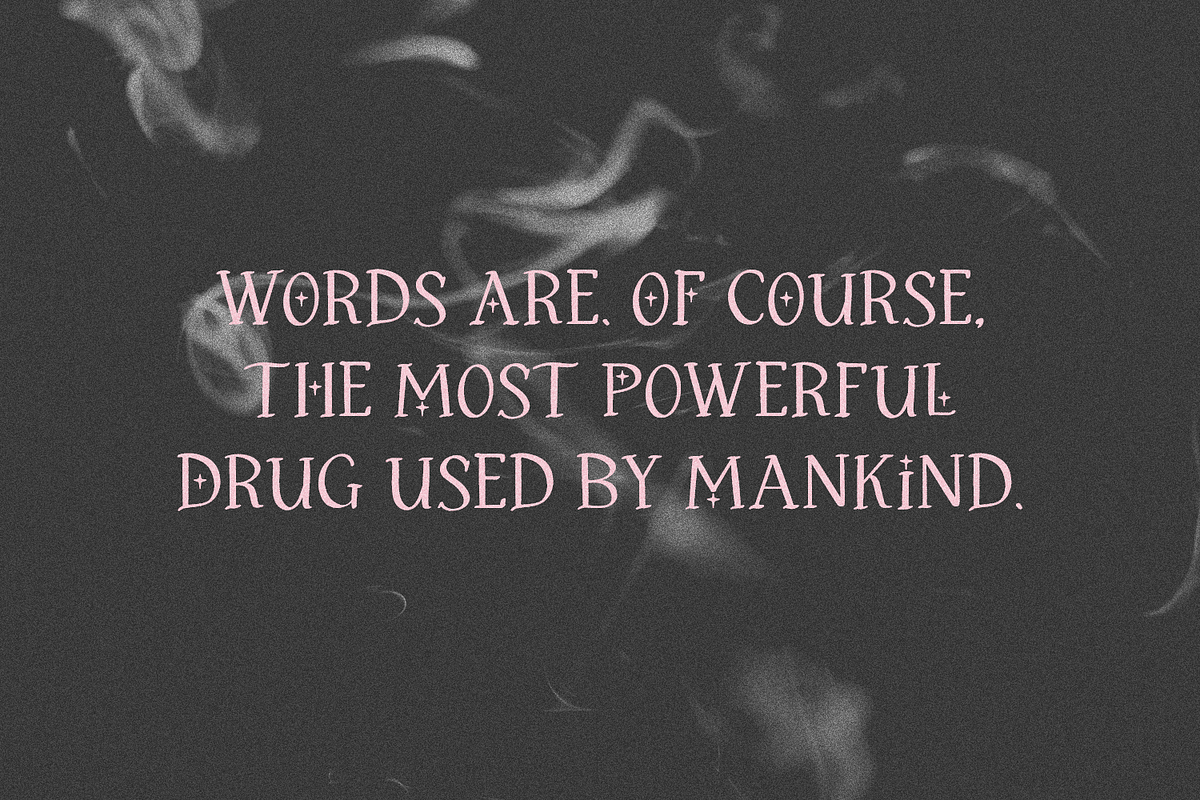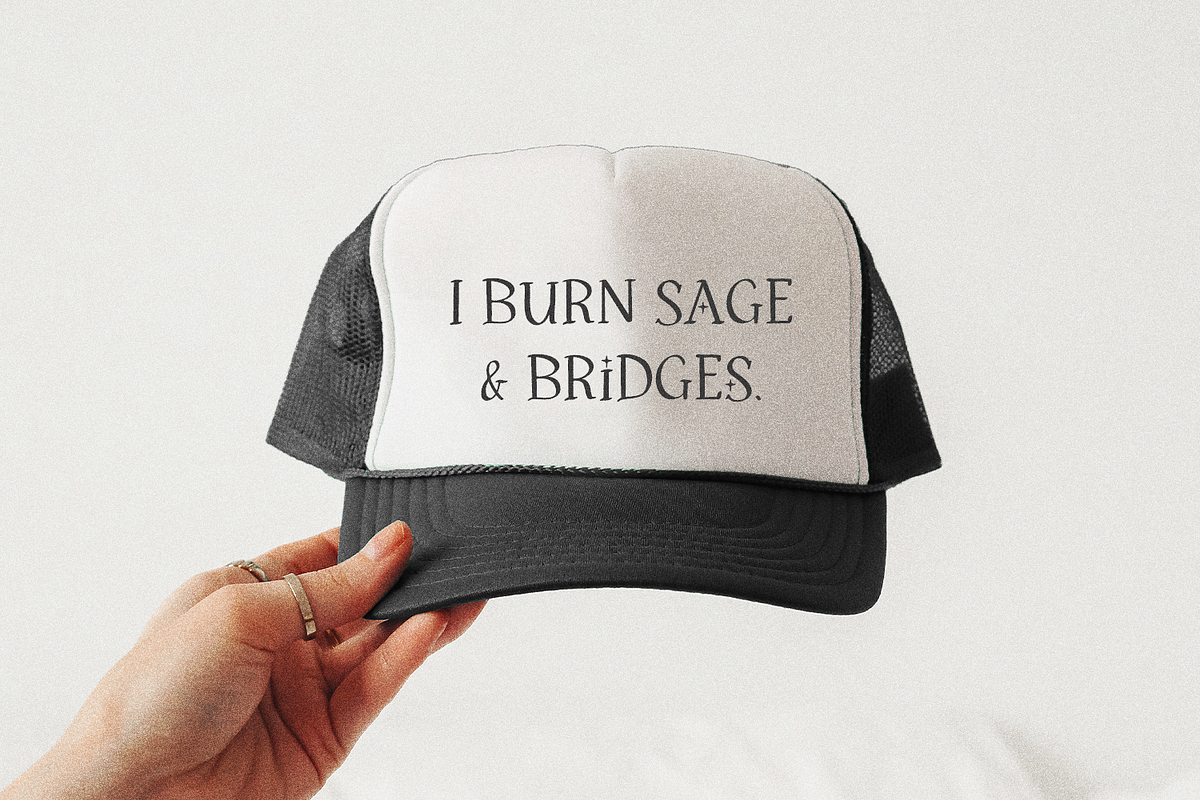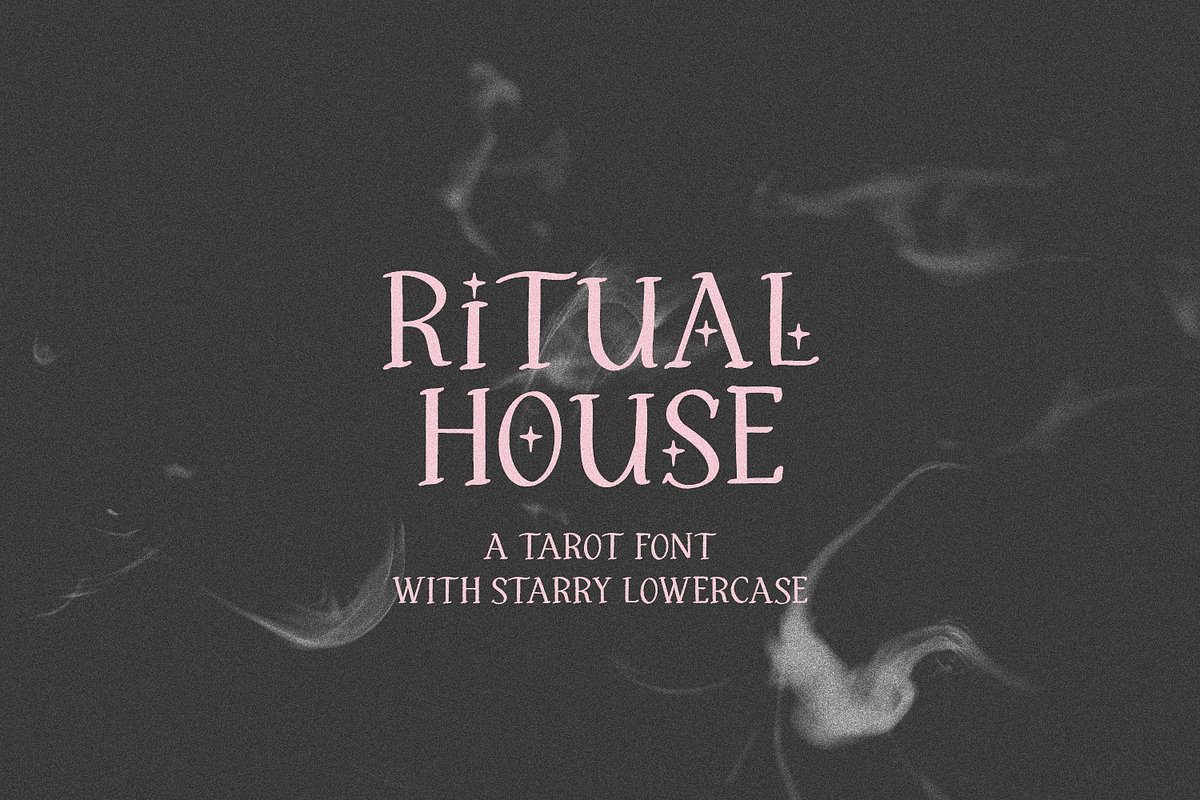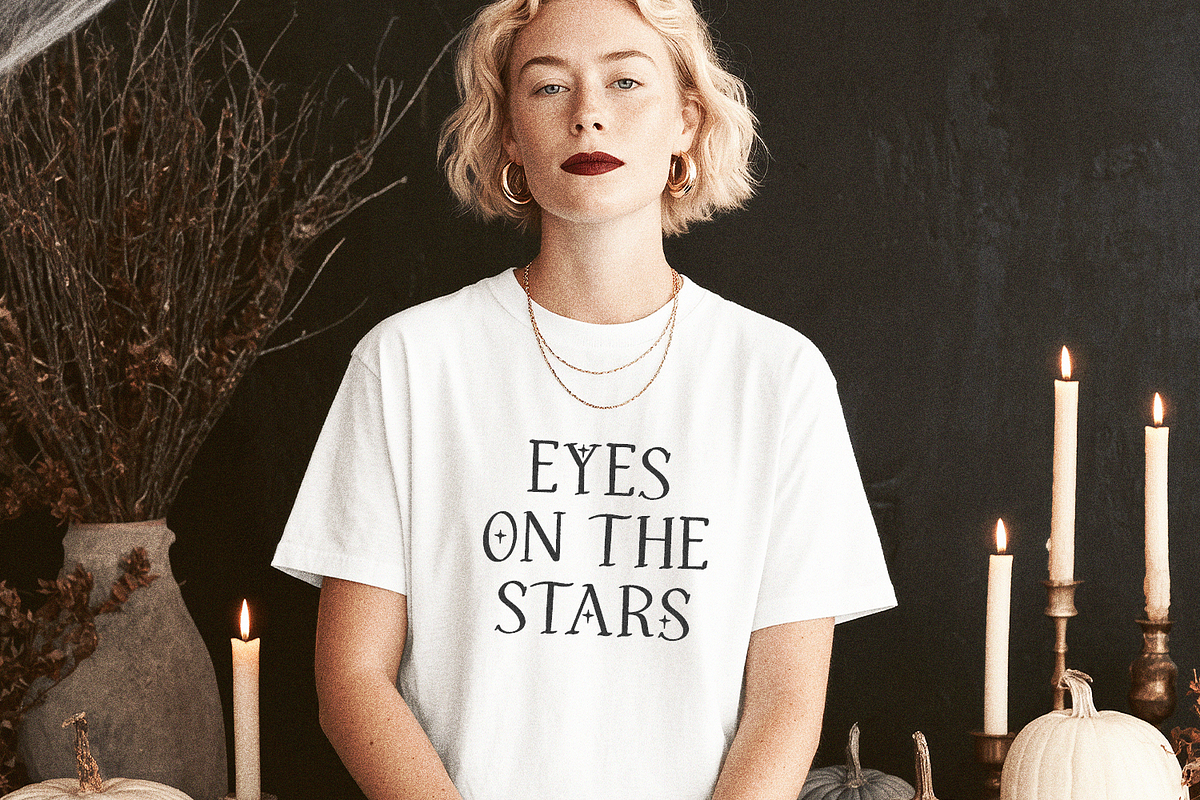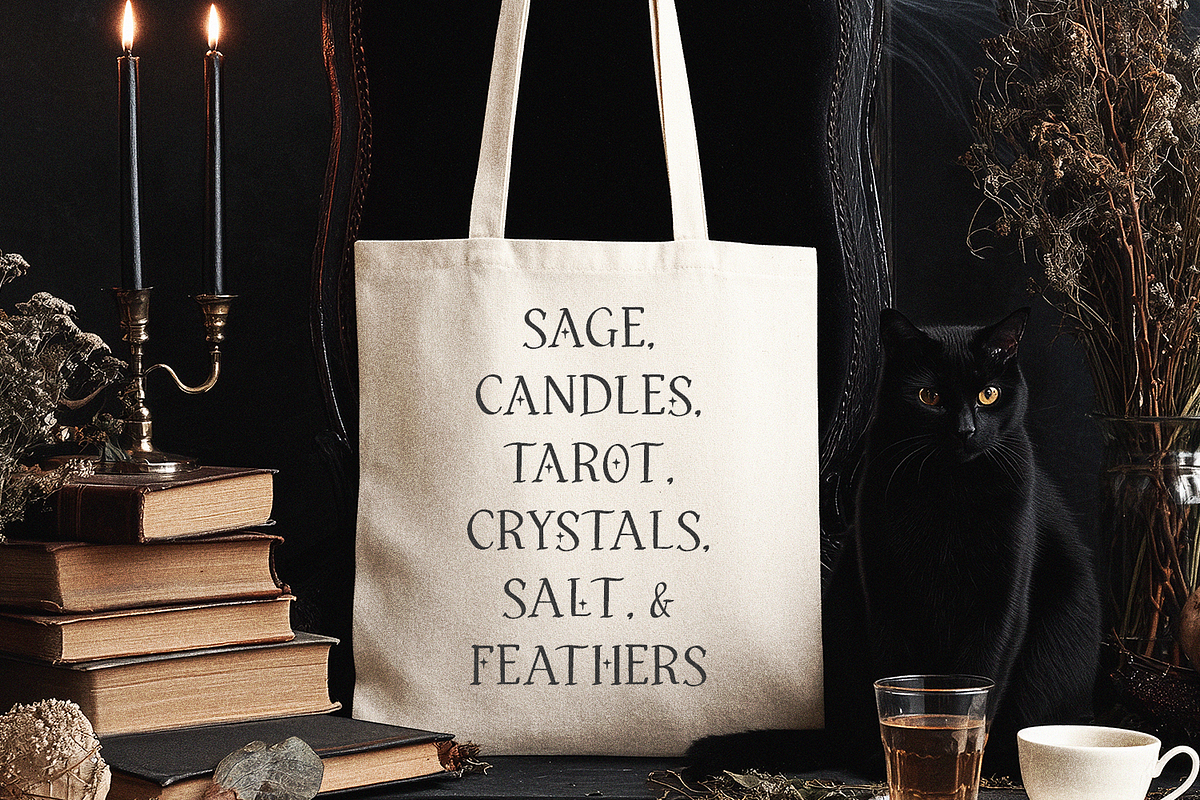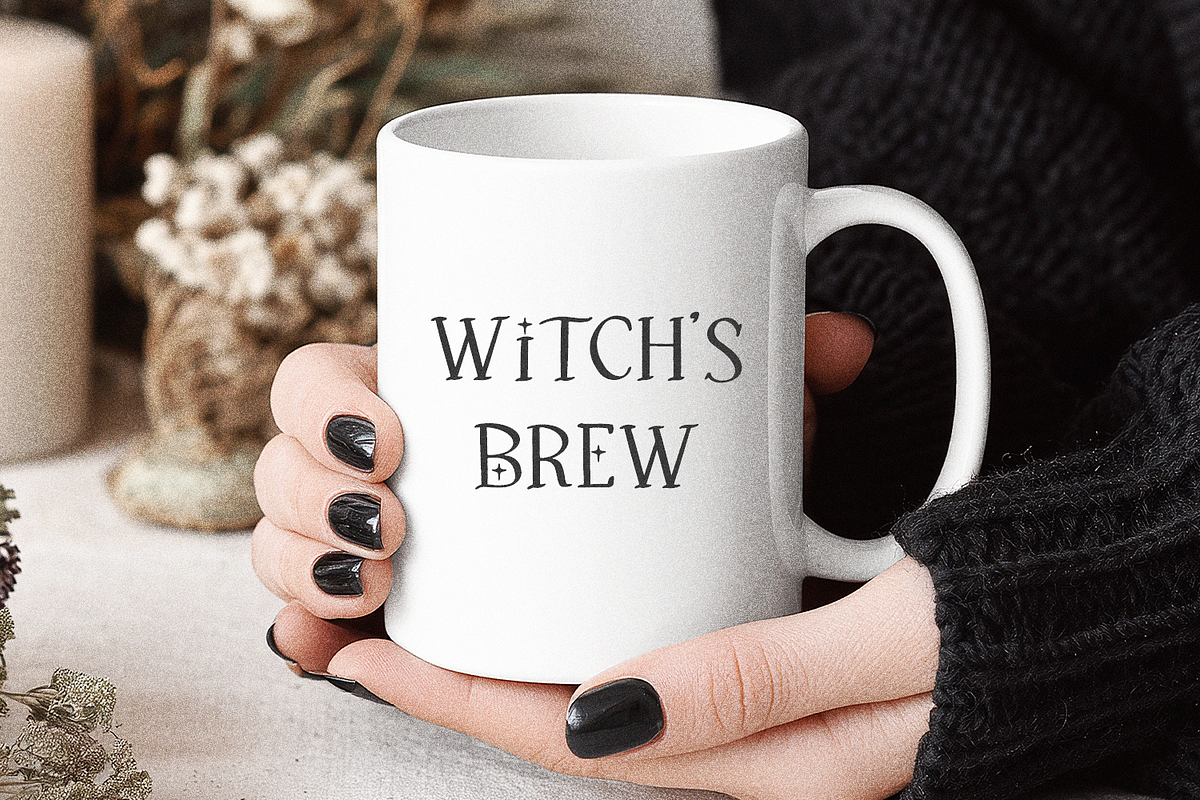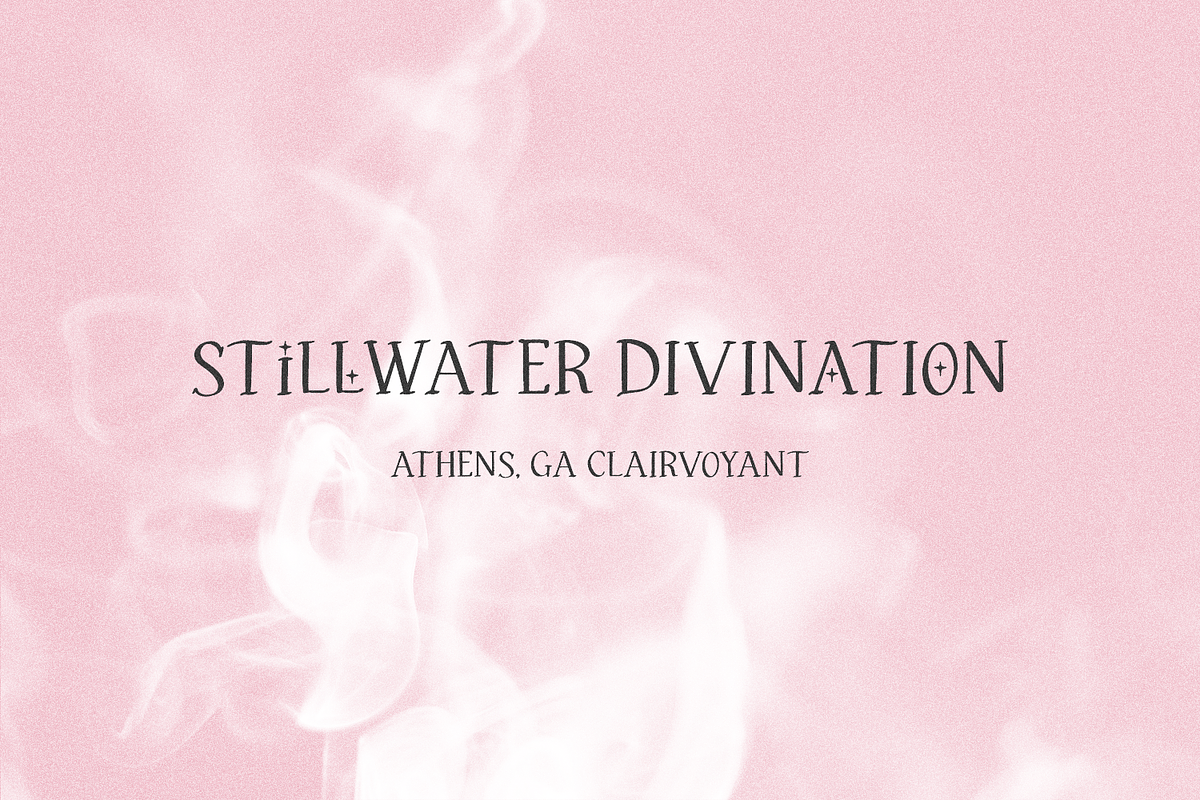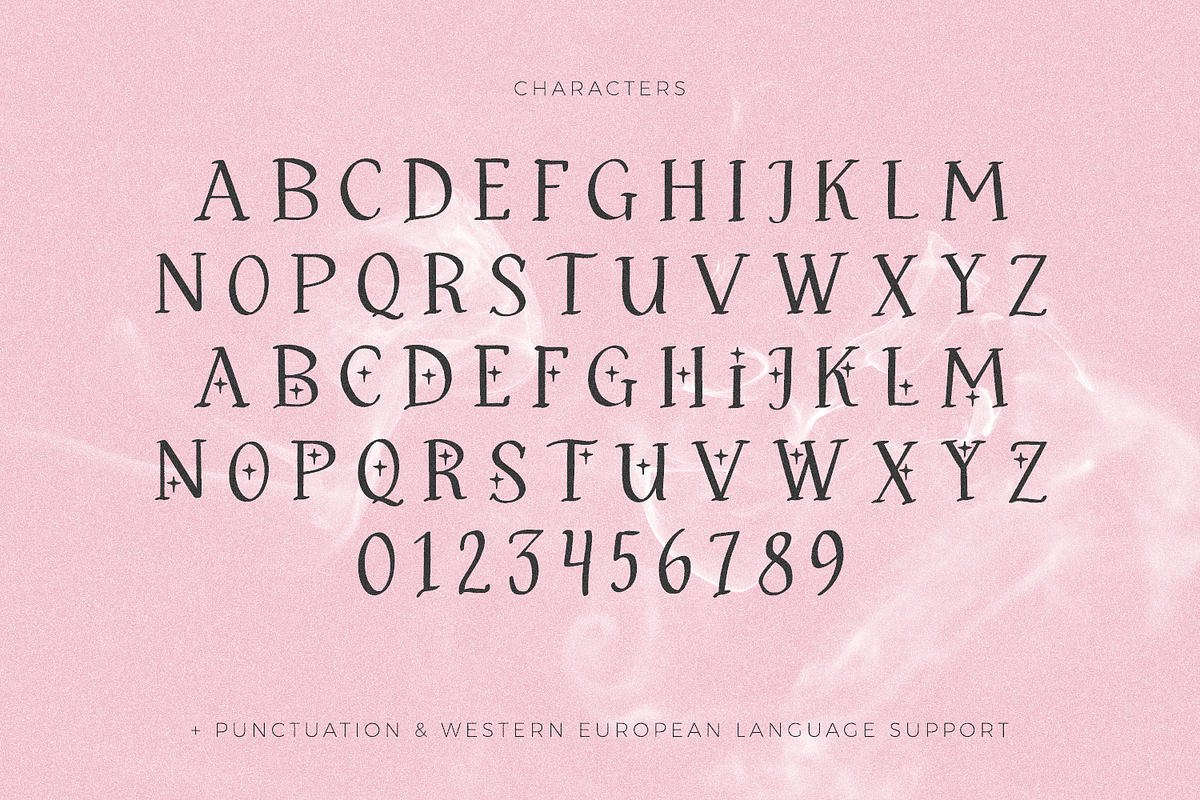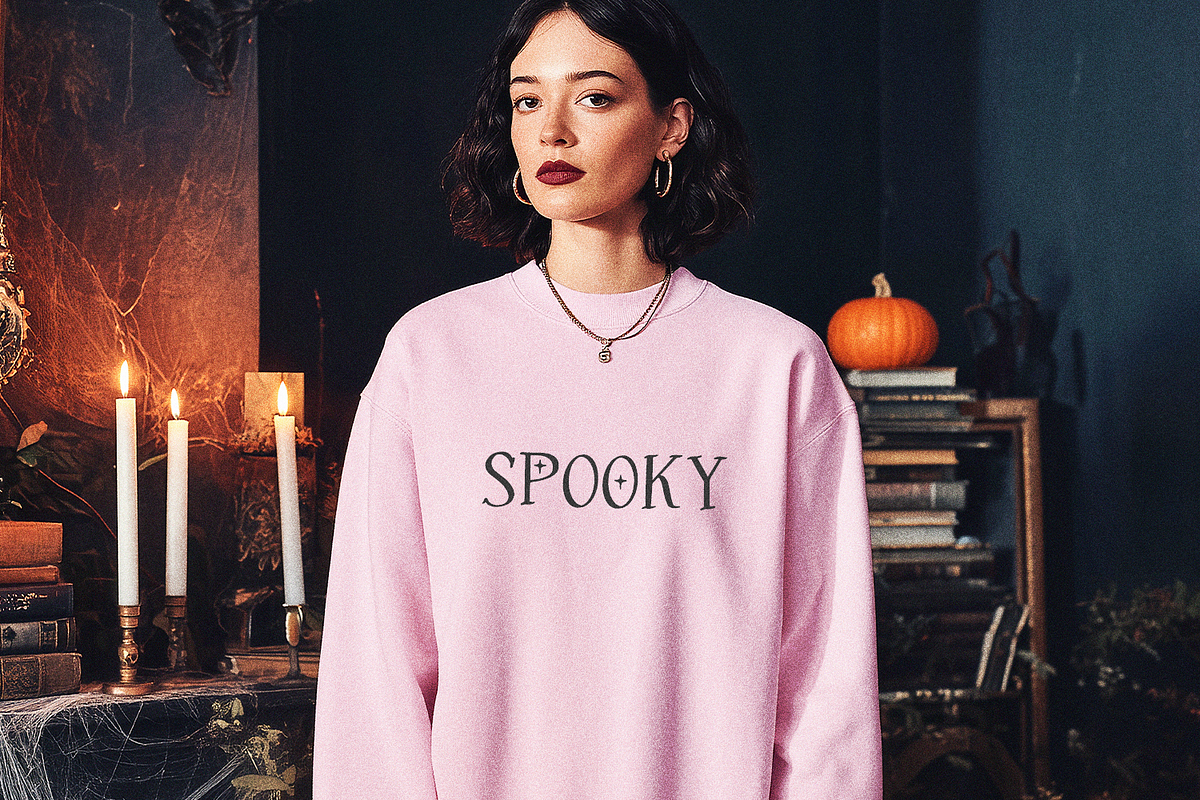
Ritual House Serif Font with Stars
Ritual House Serif is a hand lettered serif font. Ritual House is all caps, but the characters programmed into the lowercase a-z slots have tiny star details. The starry characters make Ritual House the perfect fit for all things mystical, celestial, witchy, tarot, and Halloween. This font is fantastic for logos & branding, greeting cards, painted banners, digital planners, note-taking apps, Canva, Cricut projects, Silhouette projects, designing SVG files, laser cutting projects, & more.
- full upper + lowercase characters
- numbers + punctuation
- Western European language support - English, French, Spanish, Portuguese (Brazil), Portuguese (Portugal), Italian, German (Germany), German (Austria), Dutch, Danish, Swedish, Norwegian (Bokmål and Nynorsk), Finnish, Icelandic, Irish, Welsh